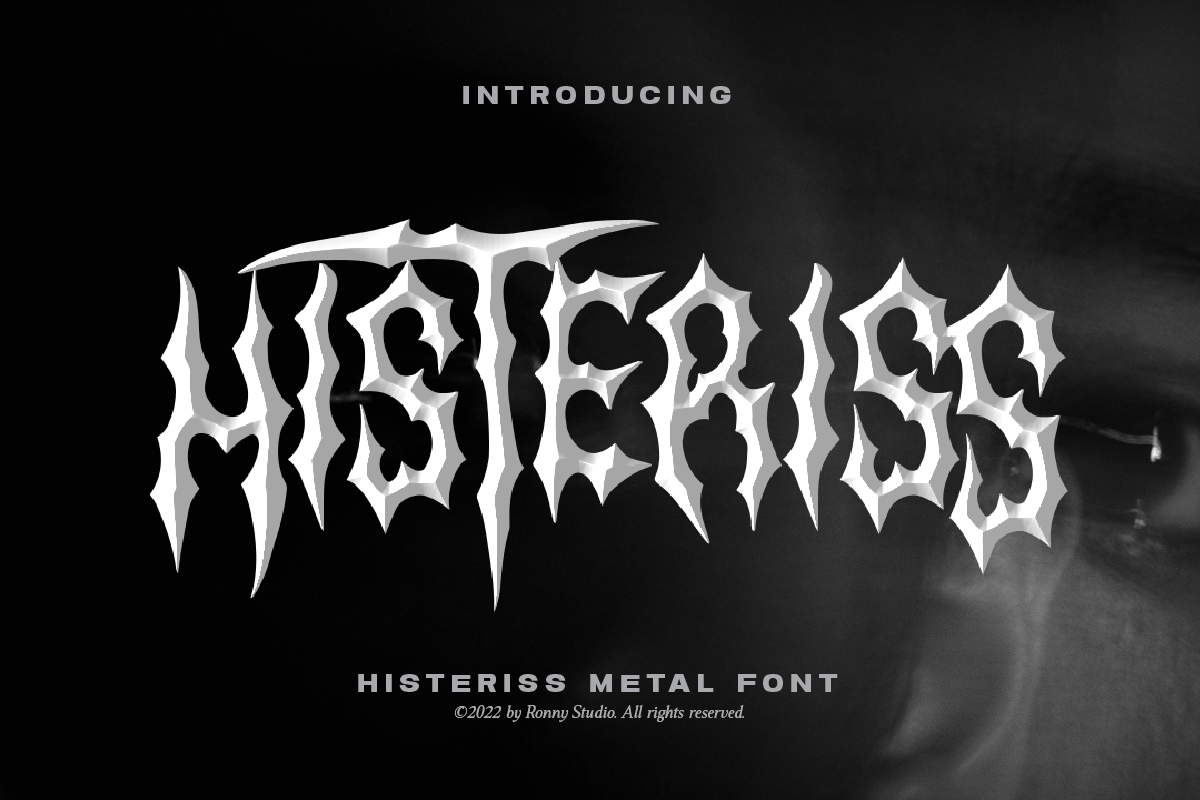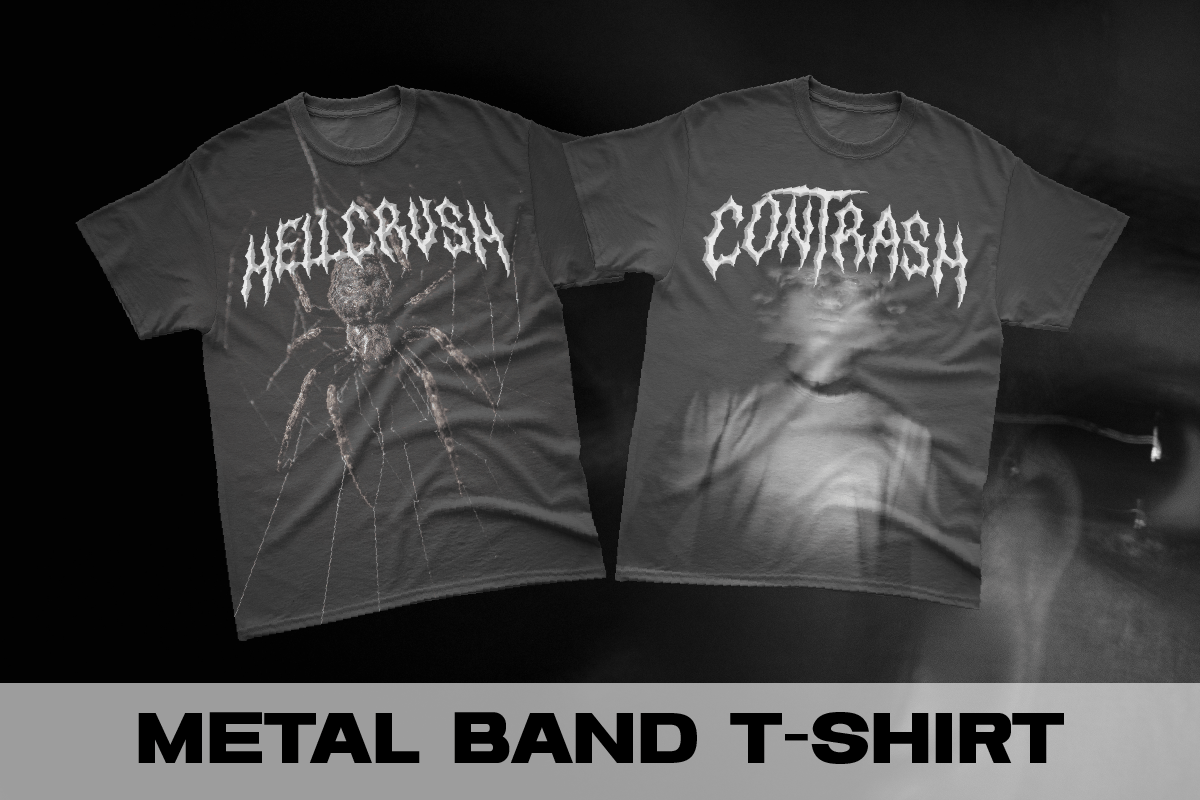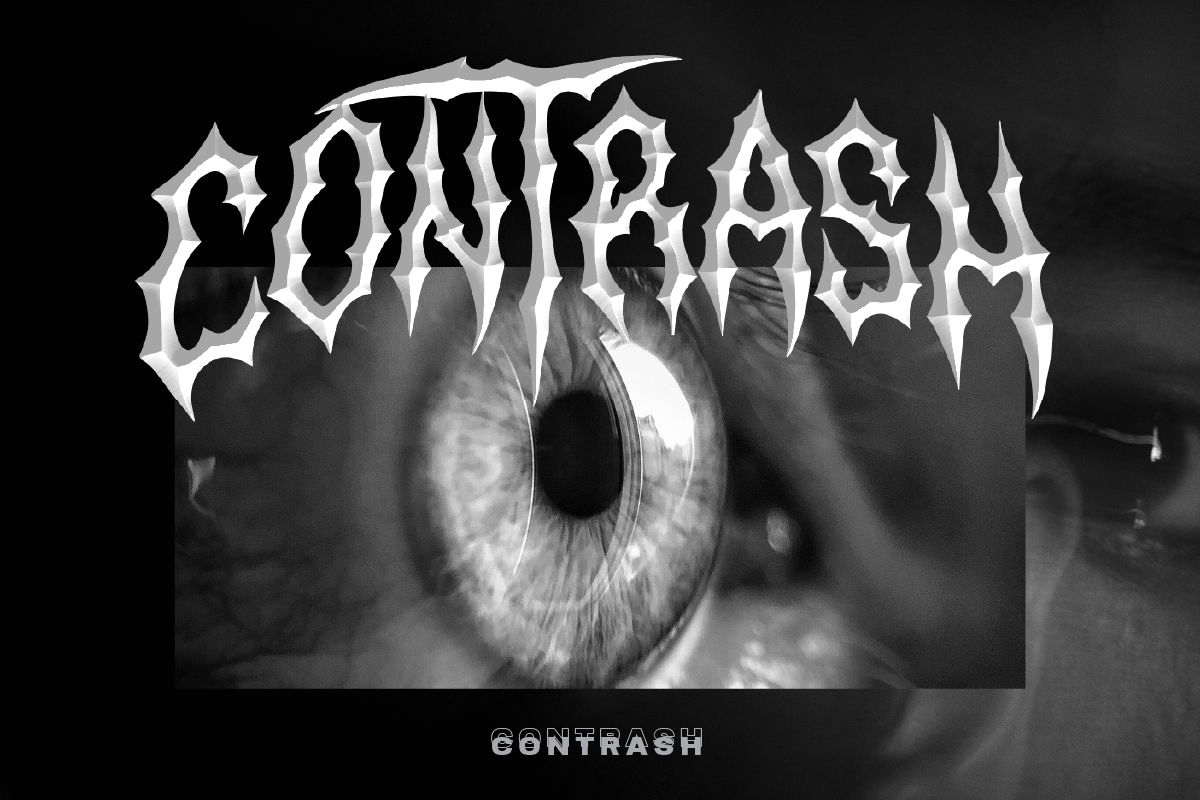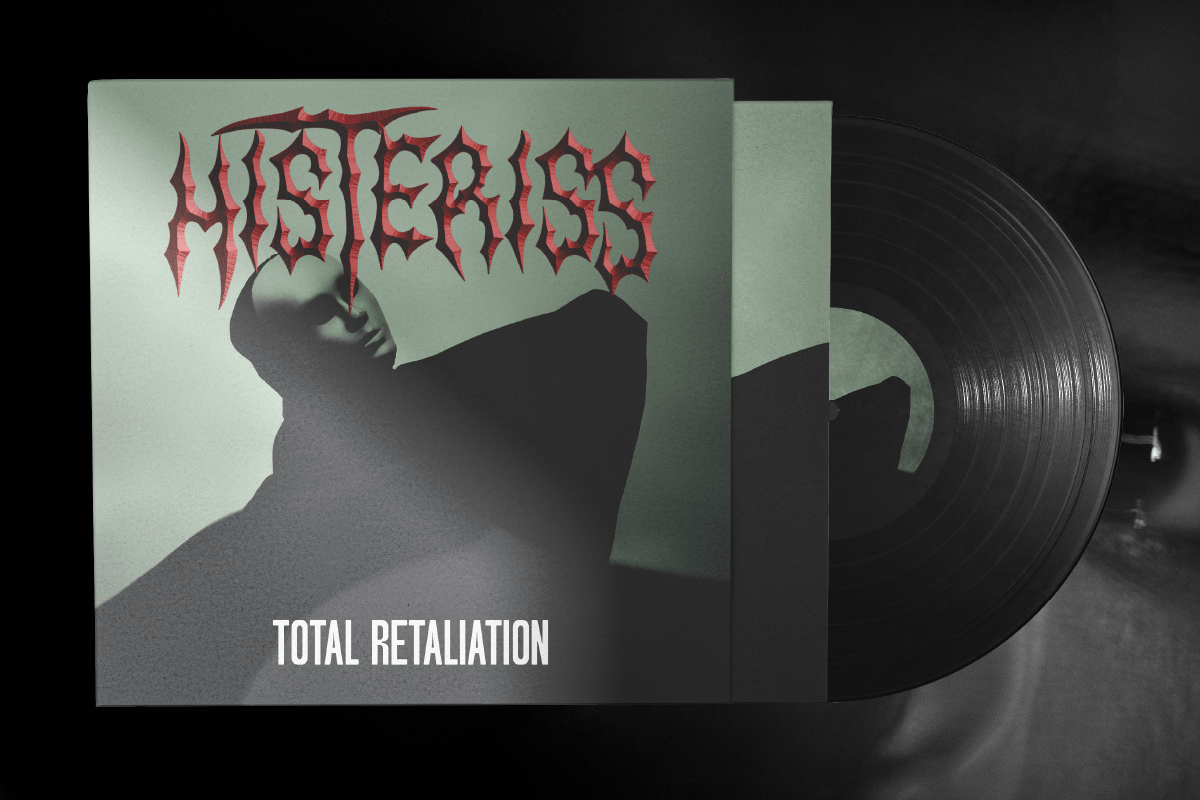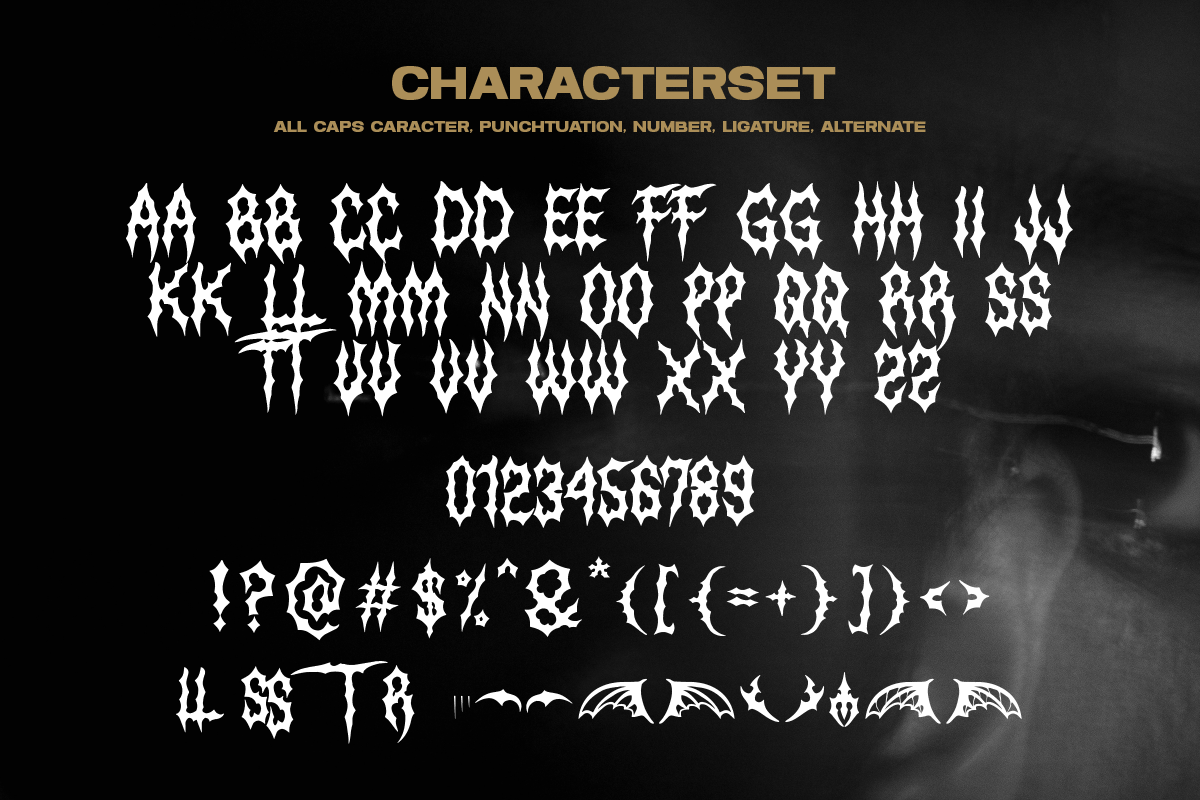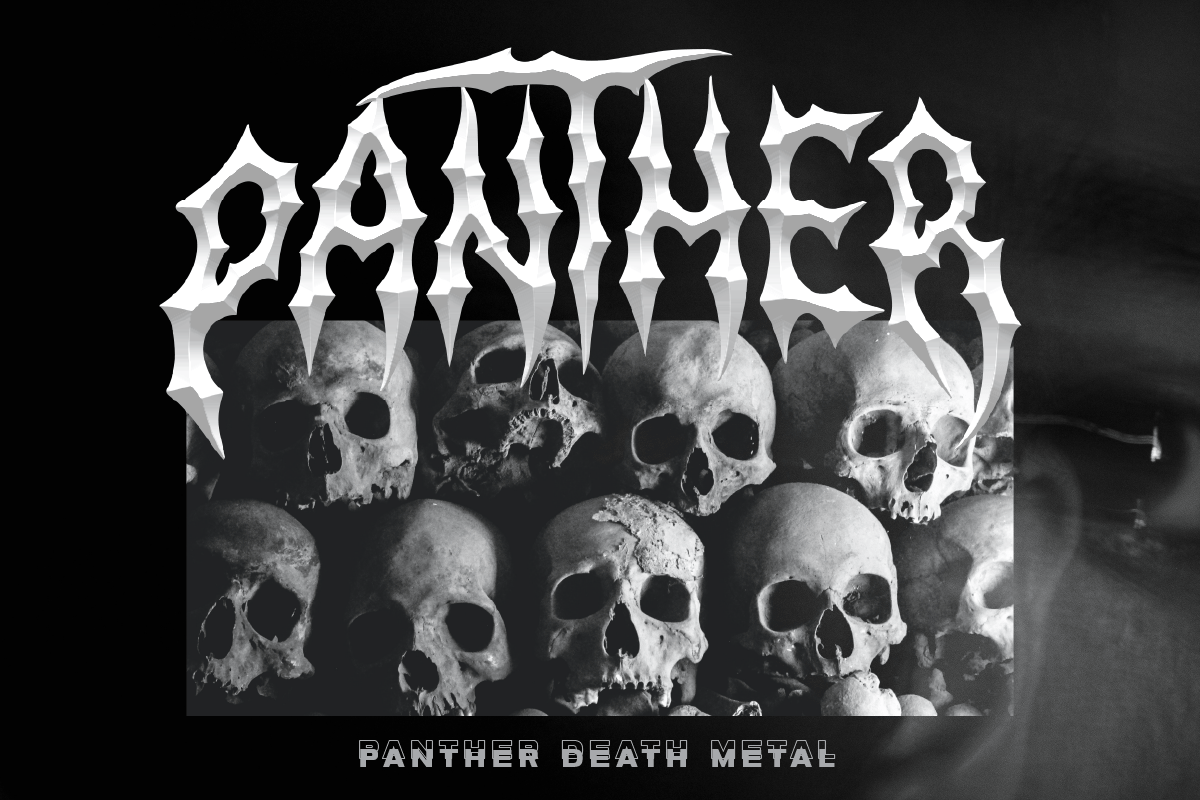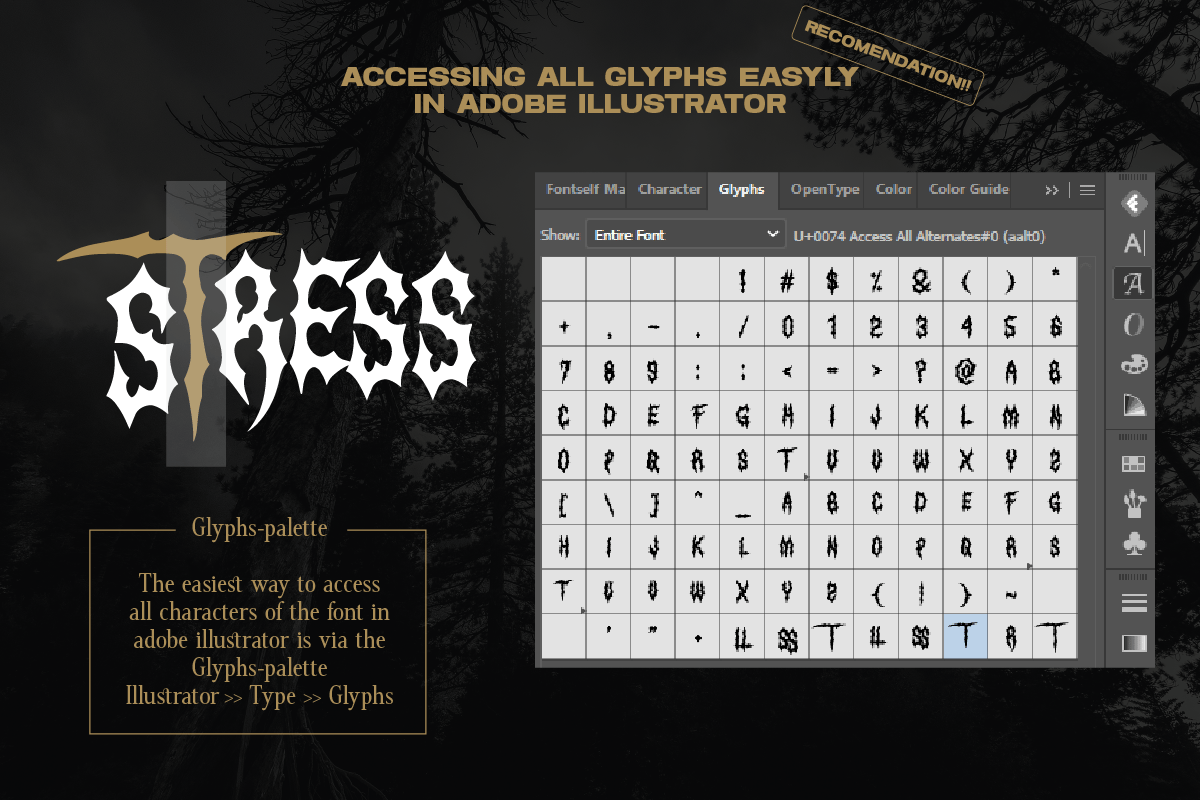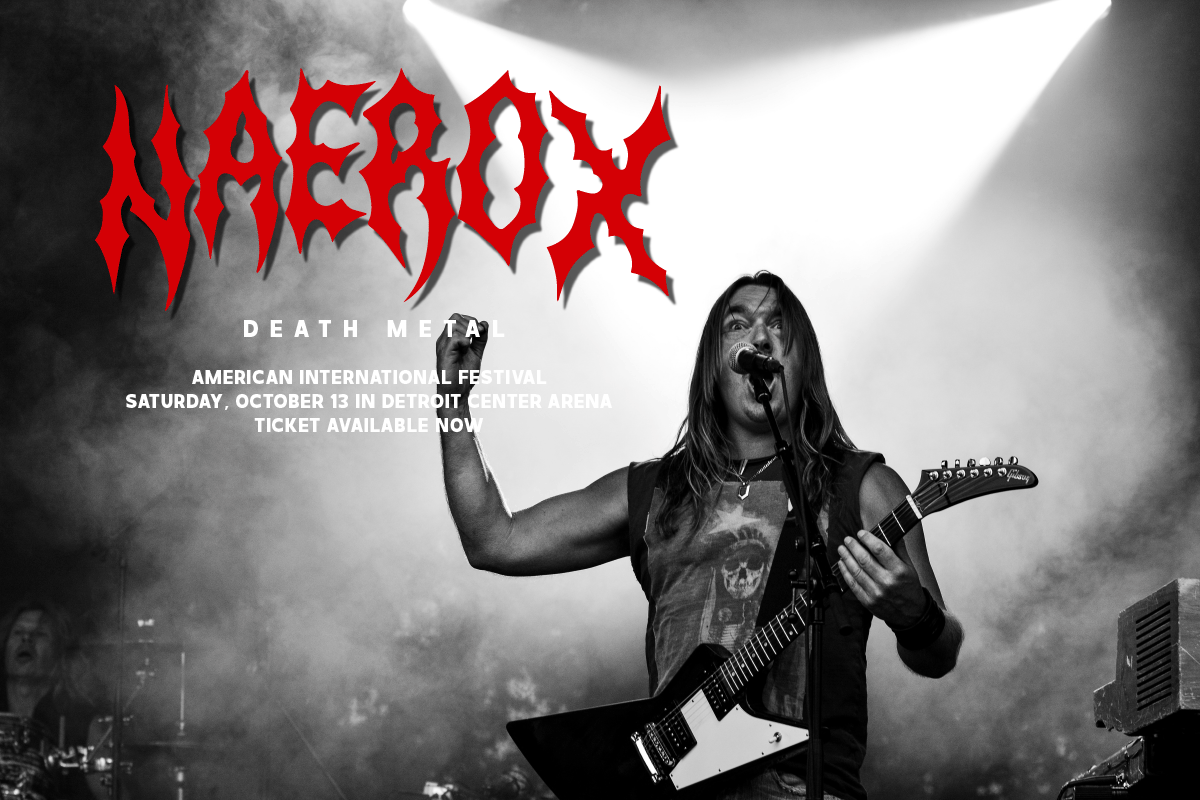
Histeriss – Metal Font
Hysteriss Font is a cool alternative for you to easily create a logo for your Underground band or whatever. Using alternate letters in the middle of a word will bring the font to life and will look cooler and fiercer, It comes with a basic character set and a small group of symbols and signs often used in the extreme music sector – Death- and classic Blackmetal like pentagram drops, roots, wings and more again.
- All Caps
- numbers & punctuation
- Symbol Ornament